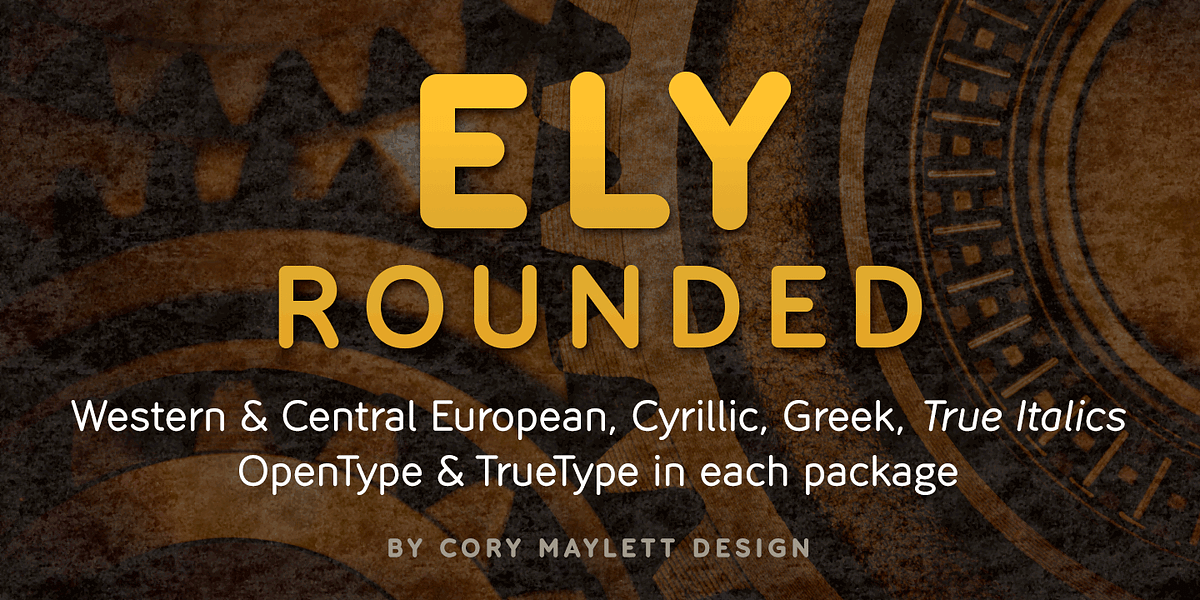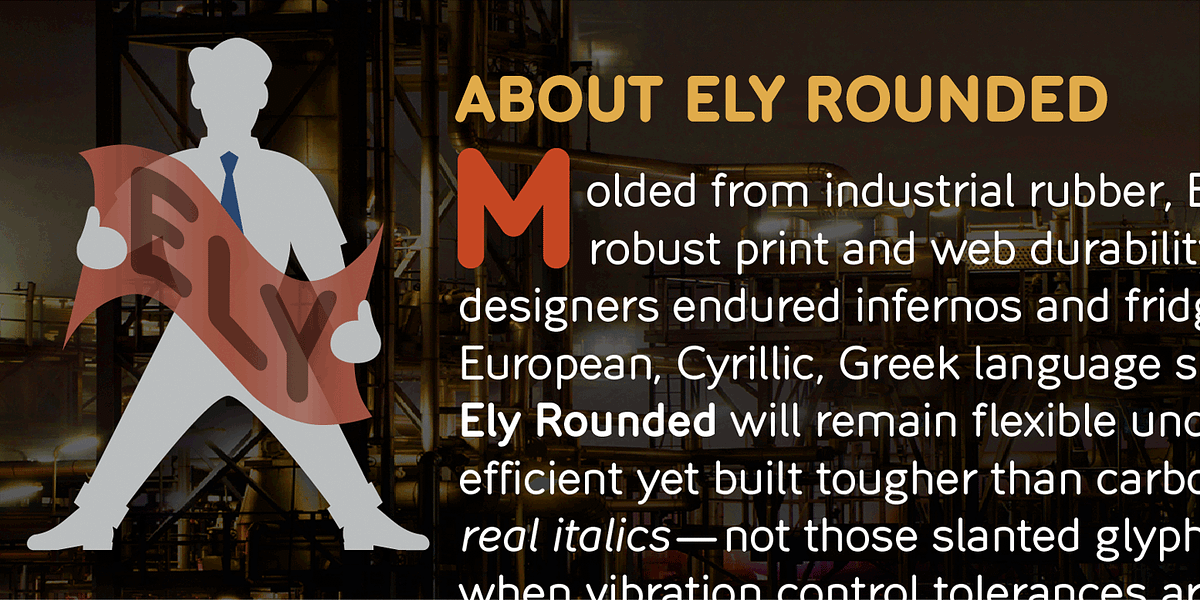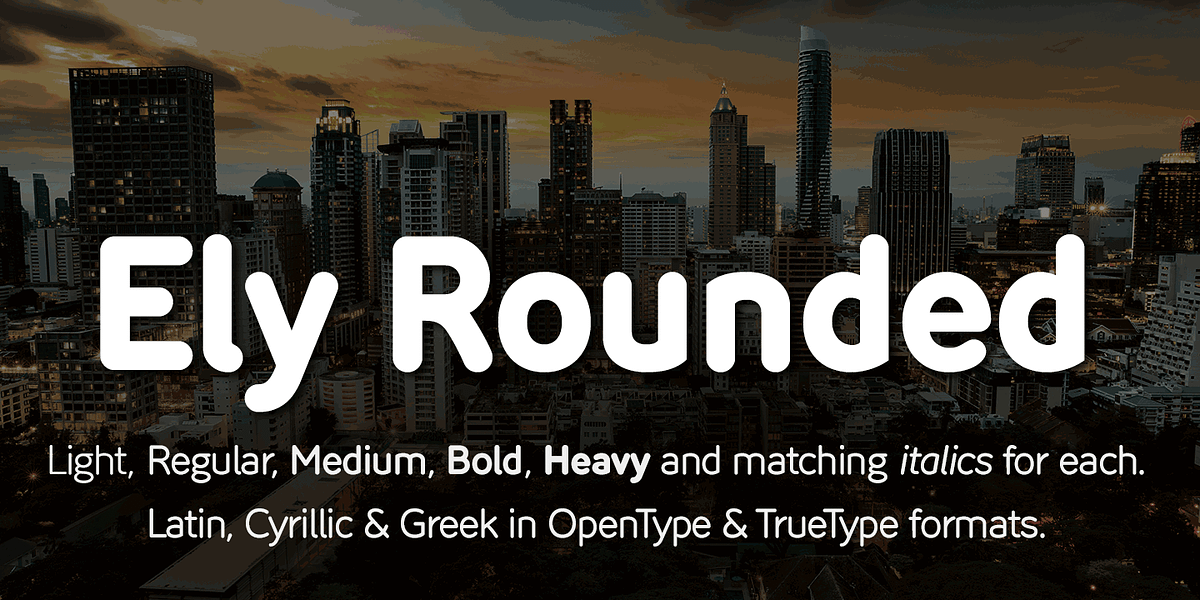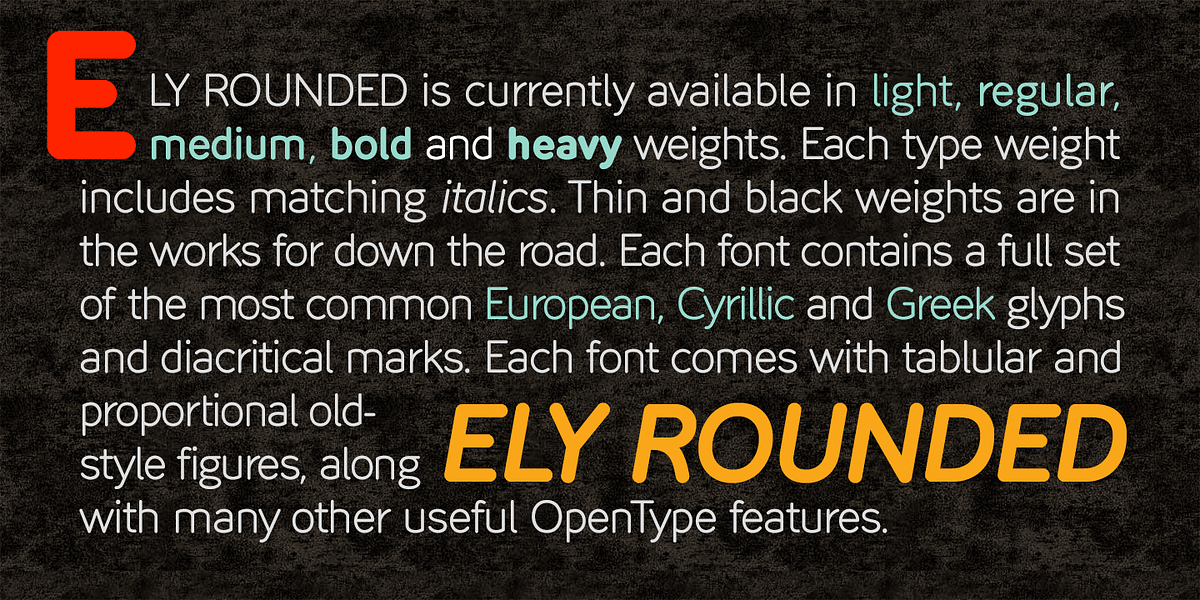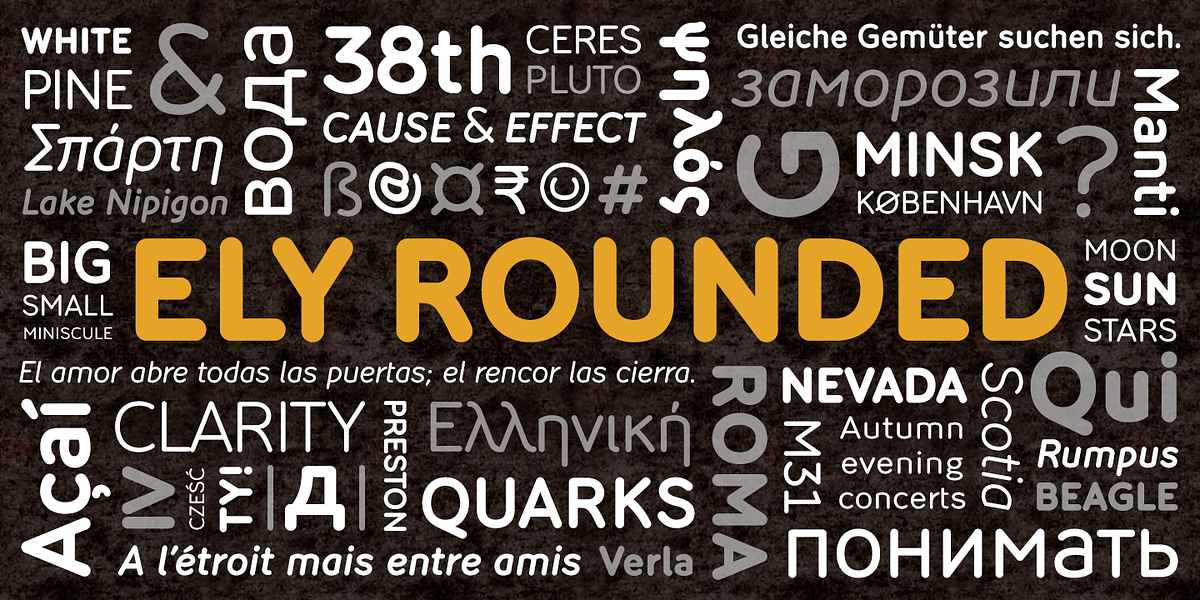
Ely Rounded
Ely Rounded is a contemporary sans serif typeface characterized by its smooth, rounded forms and lack of spurs. It offers five weights plus matching italics, making it suitable for a variety of applications from body text to headlines. The font includes extended language support for European, Cyrillic, and Greek scripts. OpenType features like fractions, tabular figures, and ligatures enhance its versatility.